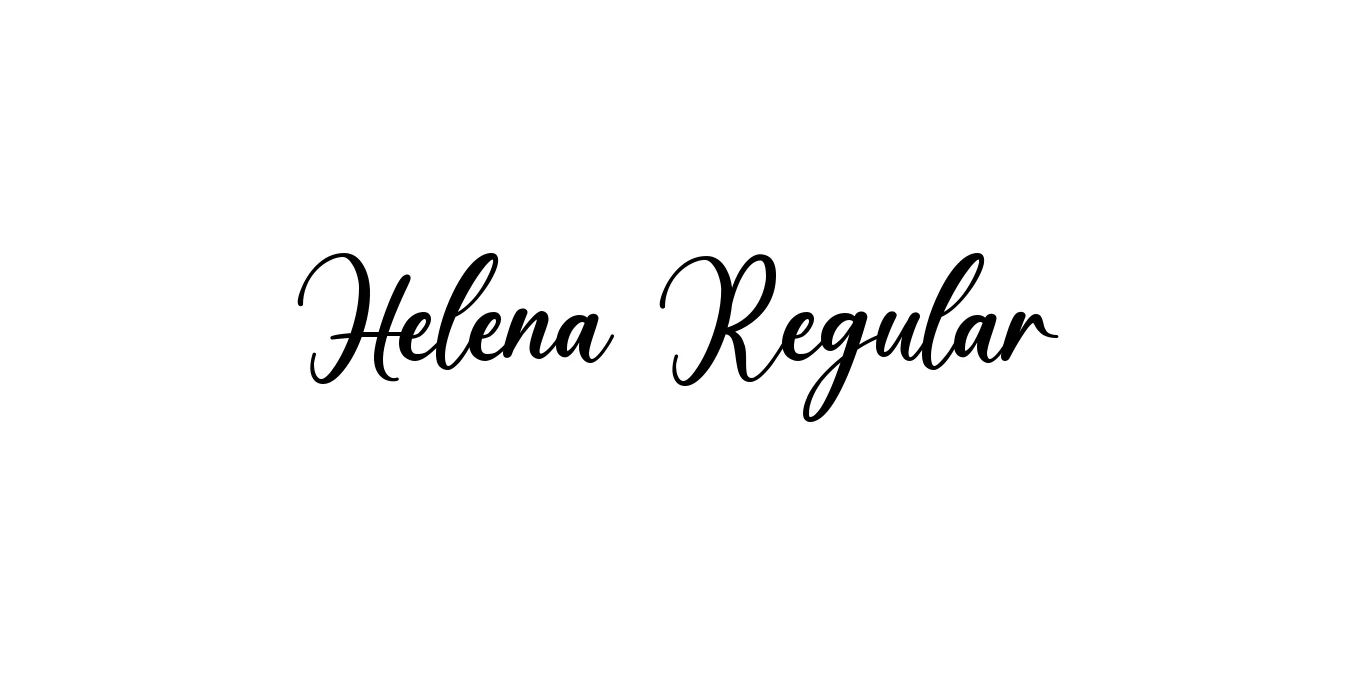
Helena Regular
Designed by Noe Araujo
| Category | Script / Brush |
| Designer | Noe Araujo |
| Similar Fonts | Amberley, Better Saturday, Brushy |
Helena Regular is a beautifully crafted hand-drawn font that embodies a rustic and organic aesthetic. Developed by Noe Araujo, this typeface focuses on the imperfections of natural brush strokes, making it ideal for creative projects that require a personal, artisanal touch. Its flowing letterforms and varying line weights create a sense of movement and authenticity, distinguishing it from standard digital scripts.
Since its release, Helena has become a staple for designers looking to escape the rigidity of traditional typography. The font's versatile nature allows it to bridge the gap between vintage charm and modern minimalist design. Whether used for high-end branding or simple social media graphics, Helena Regular offers a warm, approachable feel that resonates with audiences seeking a handmade look.